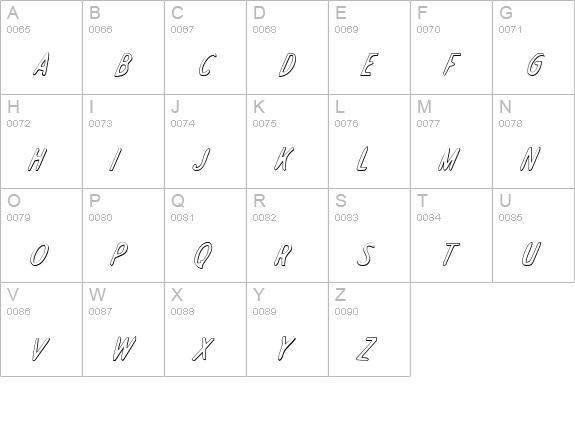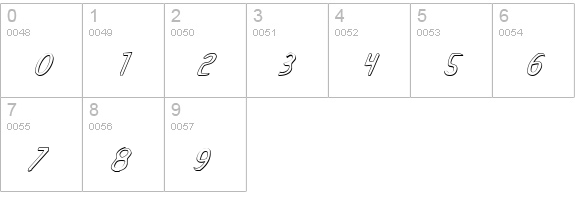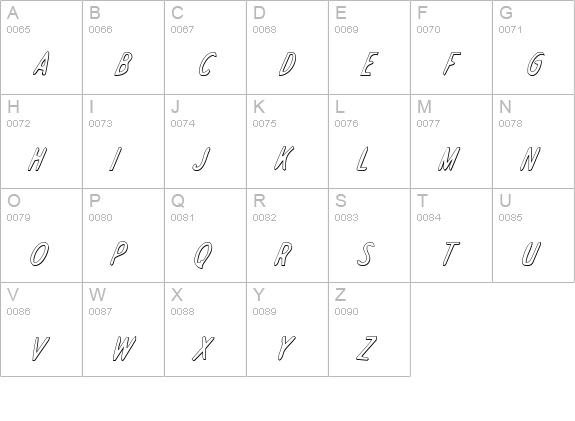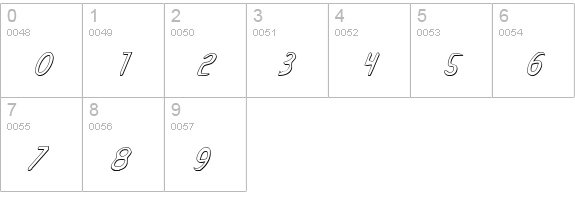
Drafting Table 3D Italic is a distinctive, italic variant in the Drafting typeface family \xE2\x80\x94 well suited to design and typography projects.
Drafting Table 3D Italic is a stylish and unique font that brings a three-dimensional effect to your designs. With its modern yet classic appeal, this font is perfect for adding a touch of sophistication to your projects. The italic style adds a dynamic flair, making your text stand out in a bold and eye-catching way. What makes Drafting Table 3D Italic even more appealing is that it is available for free download at FontsMarket.com. This means you can easily access this versatile font and use it in your personal or commercial projects without any cost. Whether you're working on graphic design, branding, or any creative endeavor, Drafting Table 3D Italic is sure to elevate your work with its distinct aesthetic and professional look. Download it today and enhance your designs with this exceptional font.